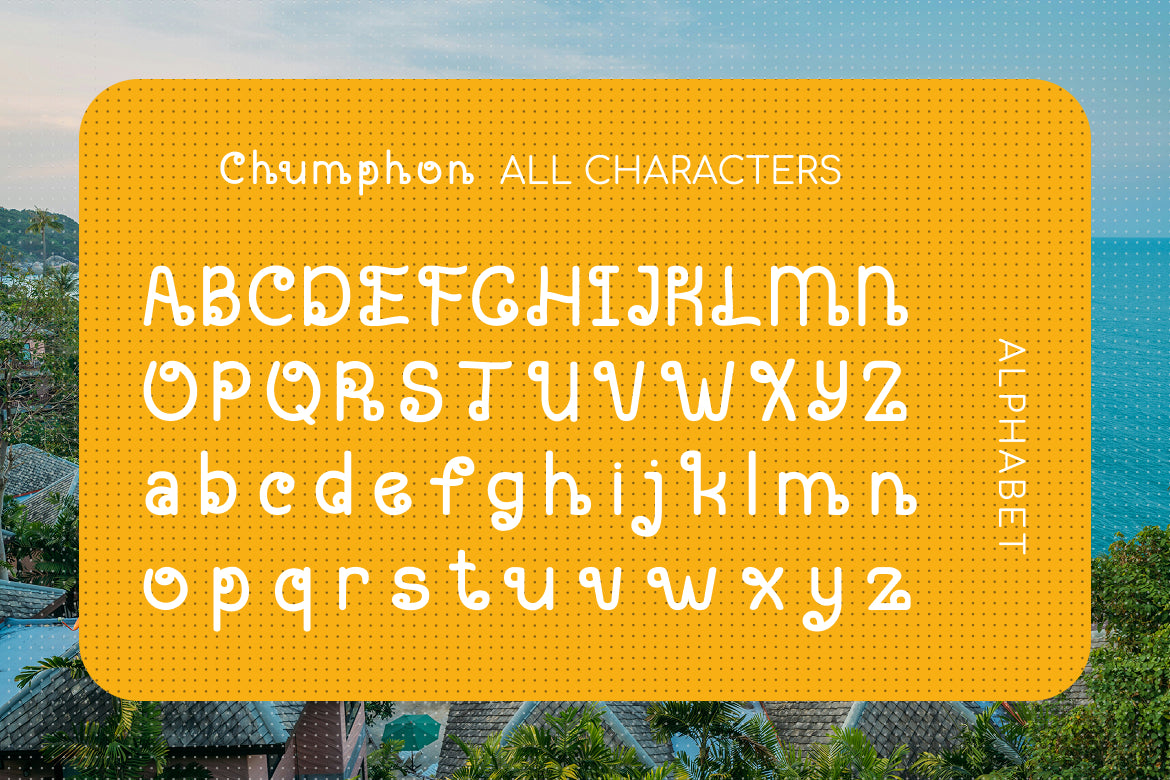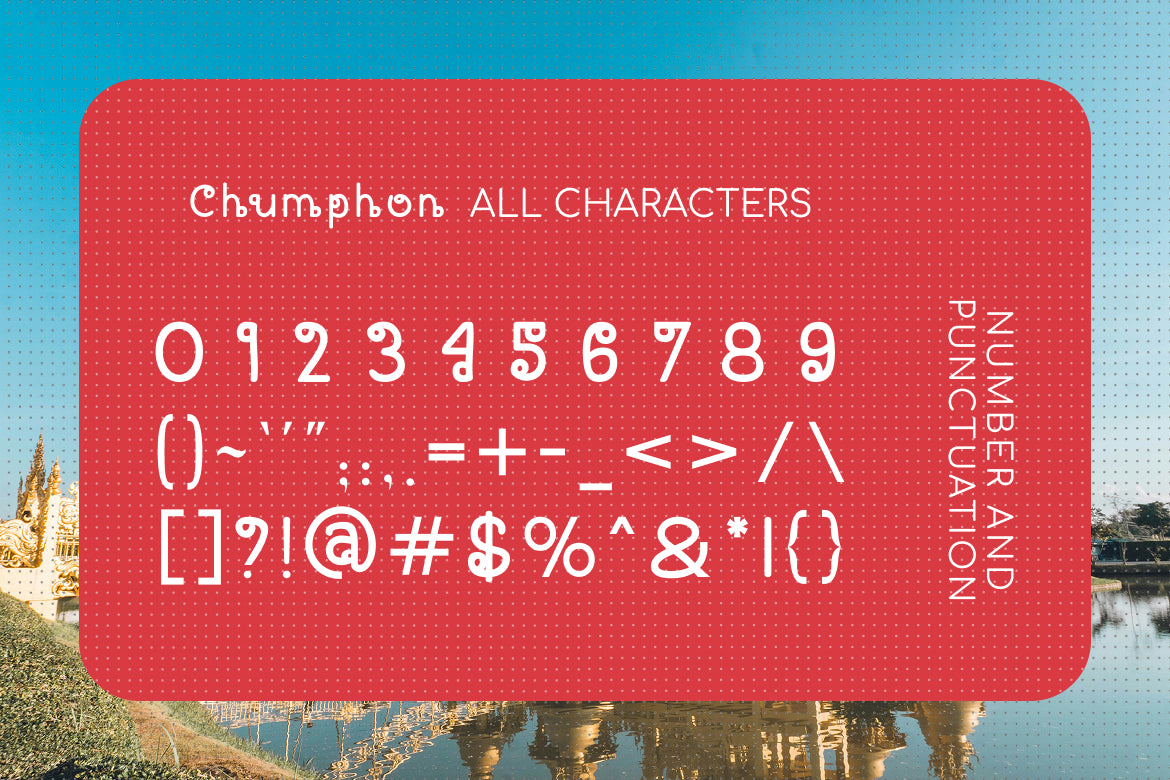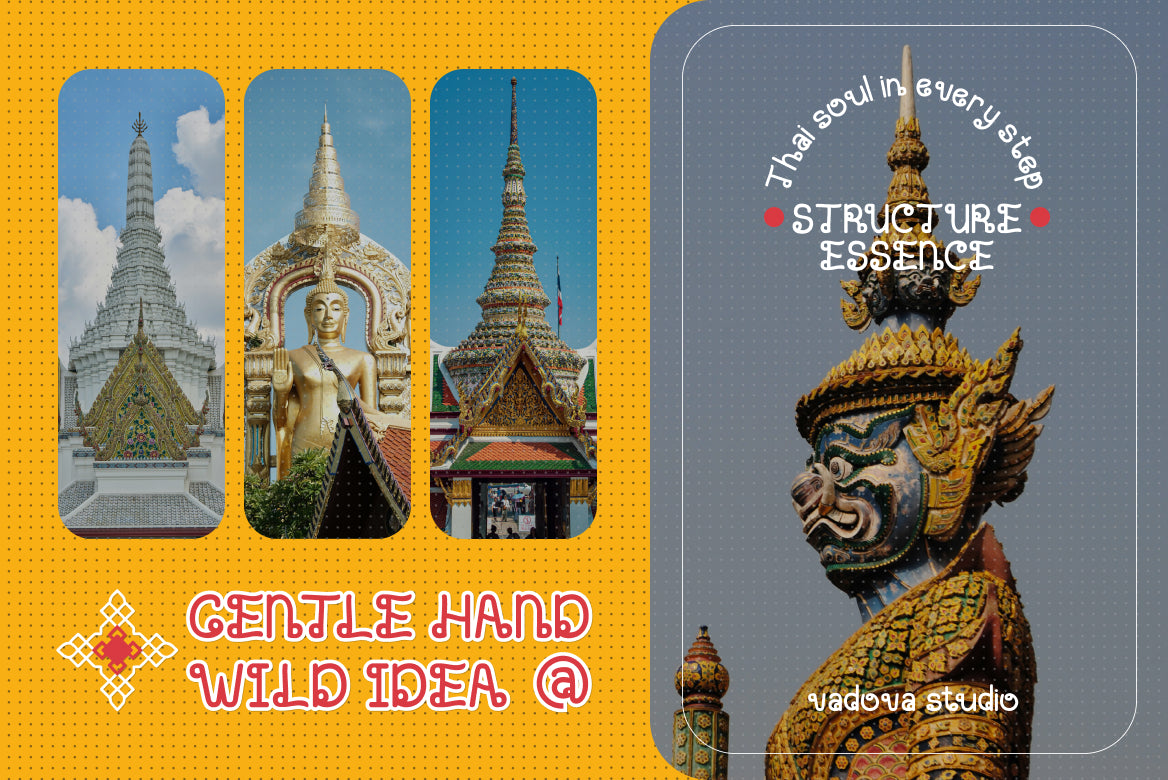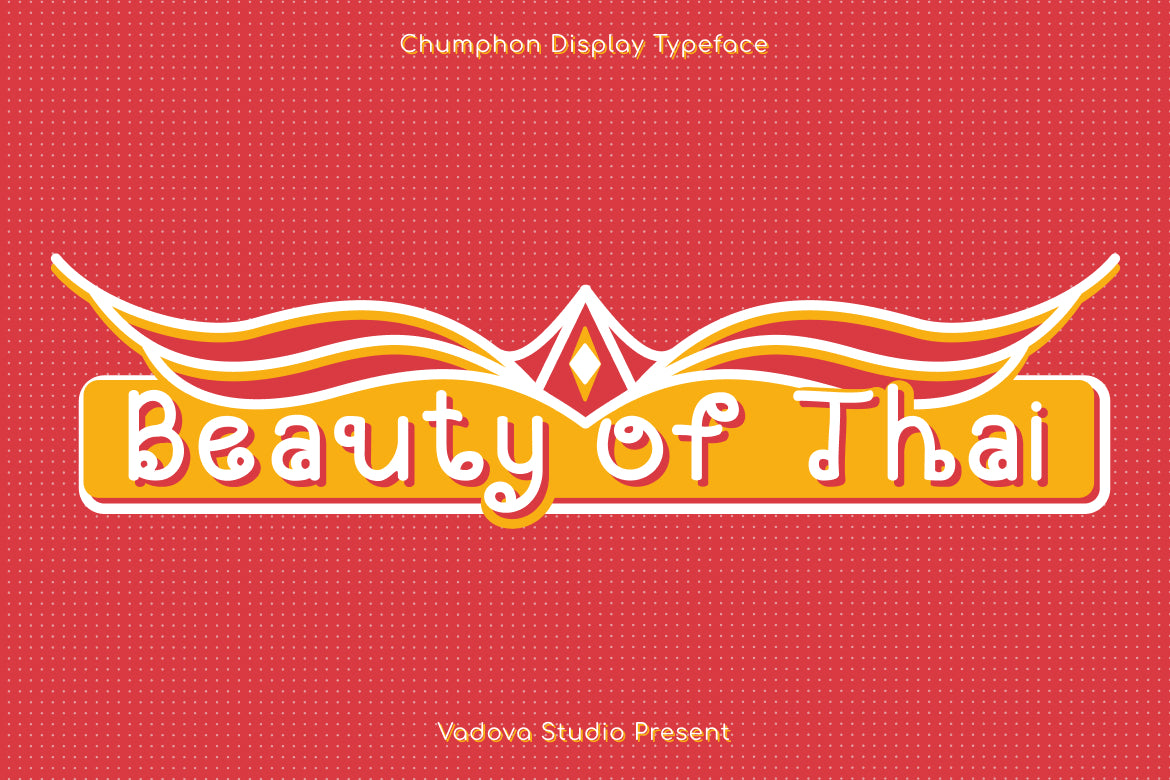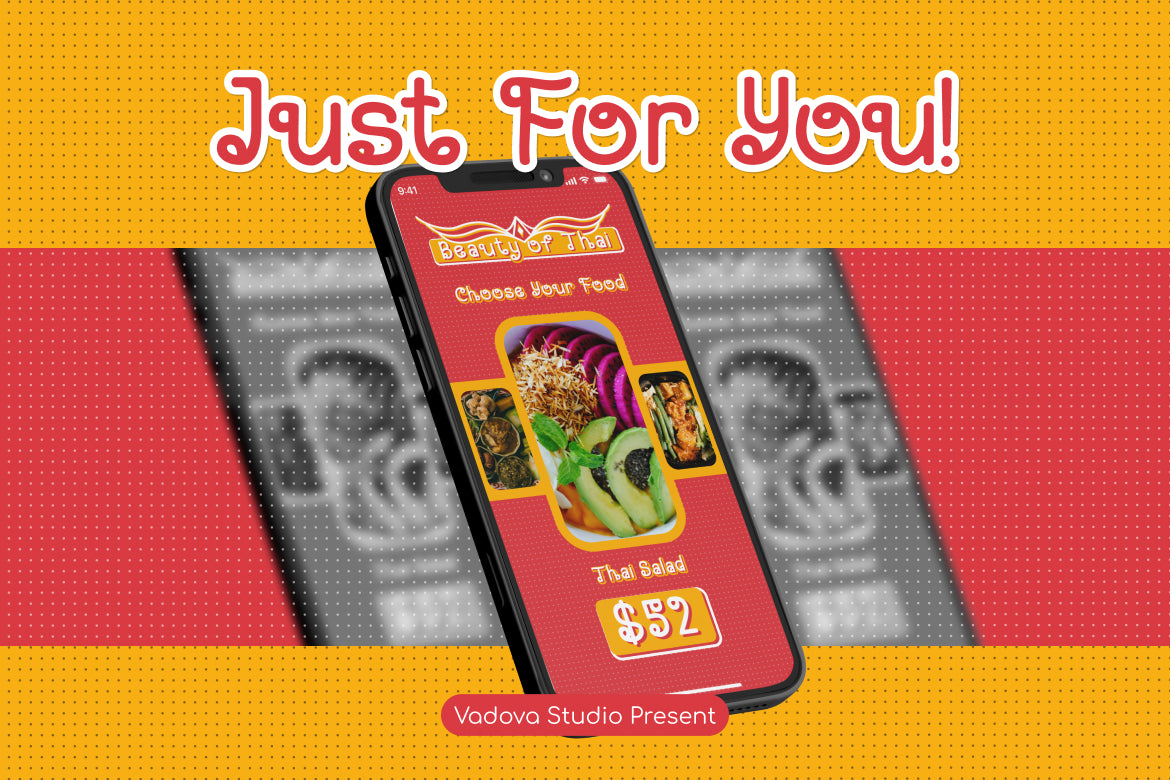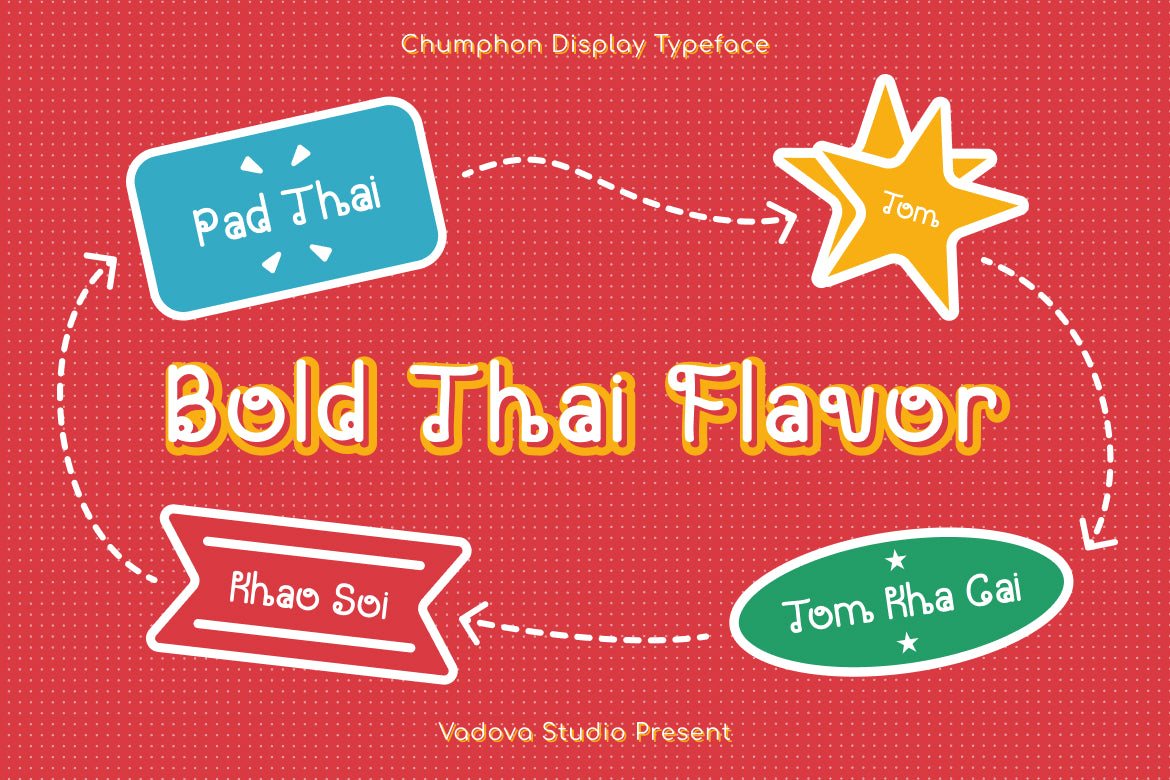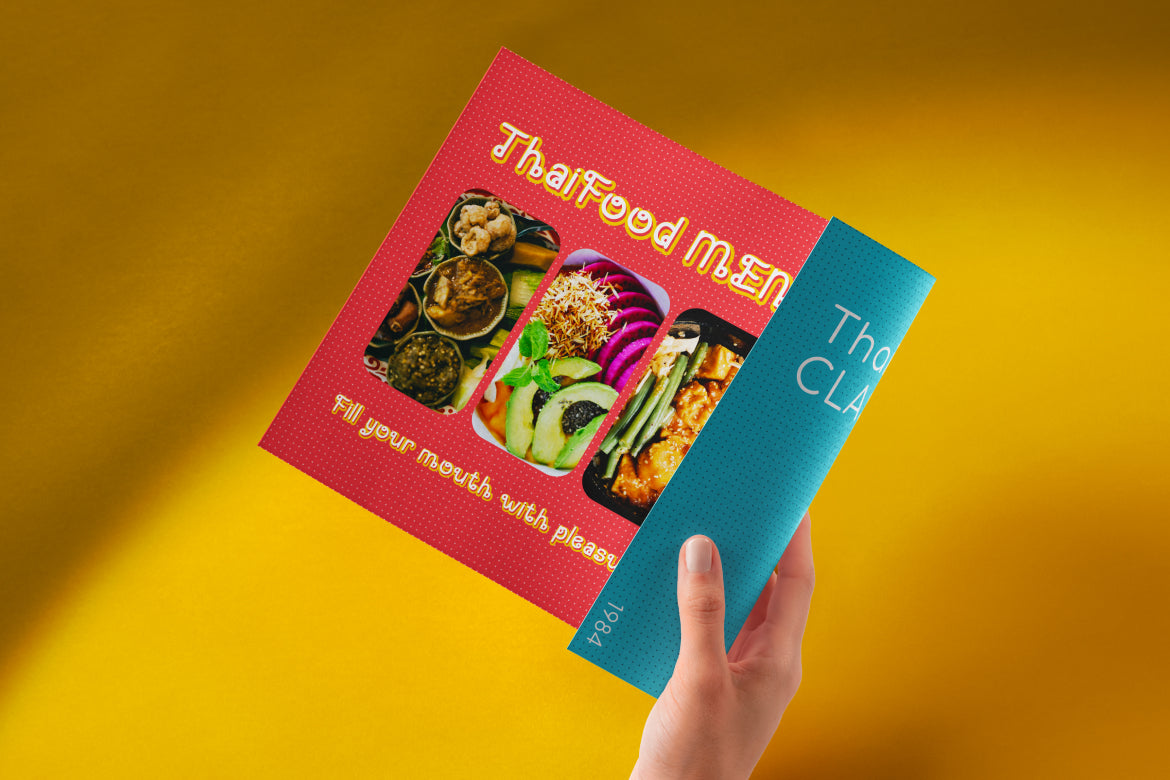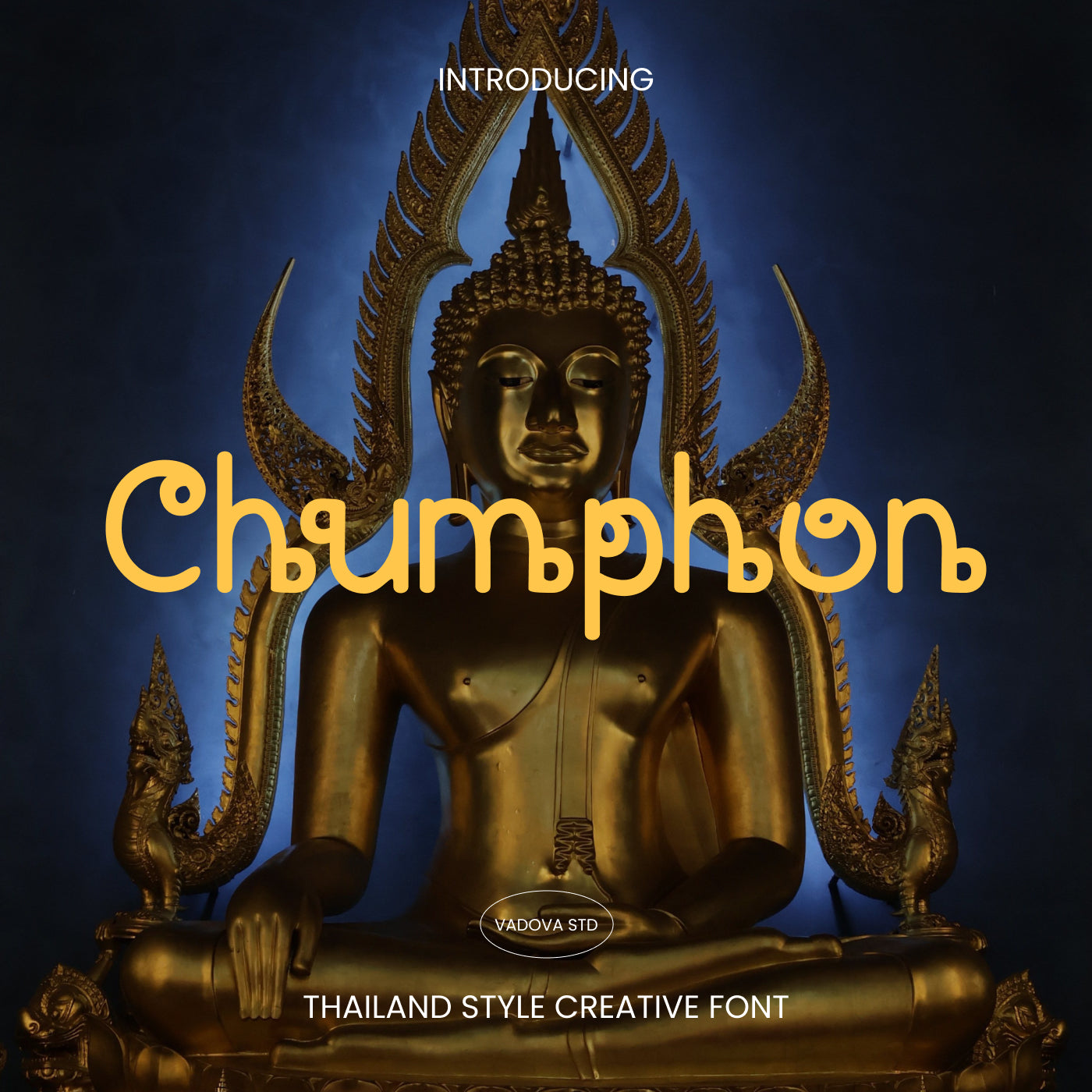
Chumphon Thailand Style Creative Font
Chumphon captures the warmth and artistic atmosphere of Southeast Asian visual culture through playful handcrafted letterforms and decorative rounded details. Inspired by traditional Thai aesthetics, tropical scenery, temple ornaments, and local artistic expression, this display typeface delivers a charming cultural personality while maintaining a modern and approachable appearance.
Relevance & Use Cases is perfect for tourism branding, tropical destination campaigns, Thai restaurant identities, cultural festivals, handmade product packaging, café menus, beach event posters, travel blogs, souvenir merchandise, lifestyle branding, social media graphics, hospitality design, resort promotions, artistic editorials, local market branding, and decorative typography projects that require a warm Southeast Asian visual atmosphere with handcrafted personality.
Chumphon is a decorative display typeface featuring handcrafted letterforms with rounded details, inspired by traditional Thai aesthetics. It includes uppercase and lowercase characters, numerals, and punctuation, available in TTF, OTF, and WOFF formats.